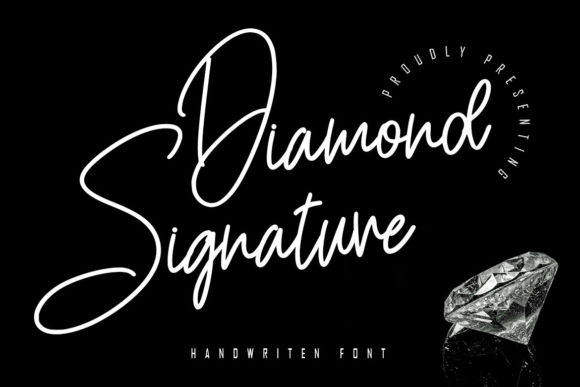
Unveil the Diamond Signature Font, the epitome of grace and eloquence, designed to revolutionize your digital presence. This script font, meticulously crafted by Skiiller Studio, is a treasure trove of elegance, sophistication, and charm. With its captivating alternates and intricate ligatures, Diamond Signature Font transcends the ordinary, leaving an enduring impression on your audience.
Immerse yourself in the world of timeless beauty as you explore the possibilities of Diamond Signature Font. Its delicate strokes and flowing curves evoke a sense of refinement, instantly elevating your designs to new heights. This font is not merely a collection of characters; it's an artistic masterpiece that breathes life into your creations, transforming ordinary text into captivating expressions.
Harness the power of Diamond Signature Font to forge a lasting connection with your audience. This font is the ultimate choice for crafting professional emails that shimmer with sophistication. Its impeccable style exudes confidence and authority, leaving a lasting impression on recipients. Whether you're a seasoned professional, a creative entrepreneur, or an aspiring artist, Diamond Signature Font is your gateway to achieving excellence in communication.